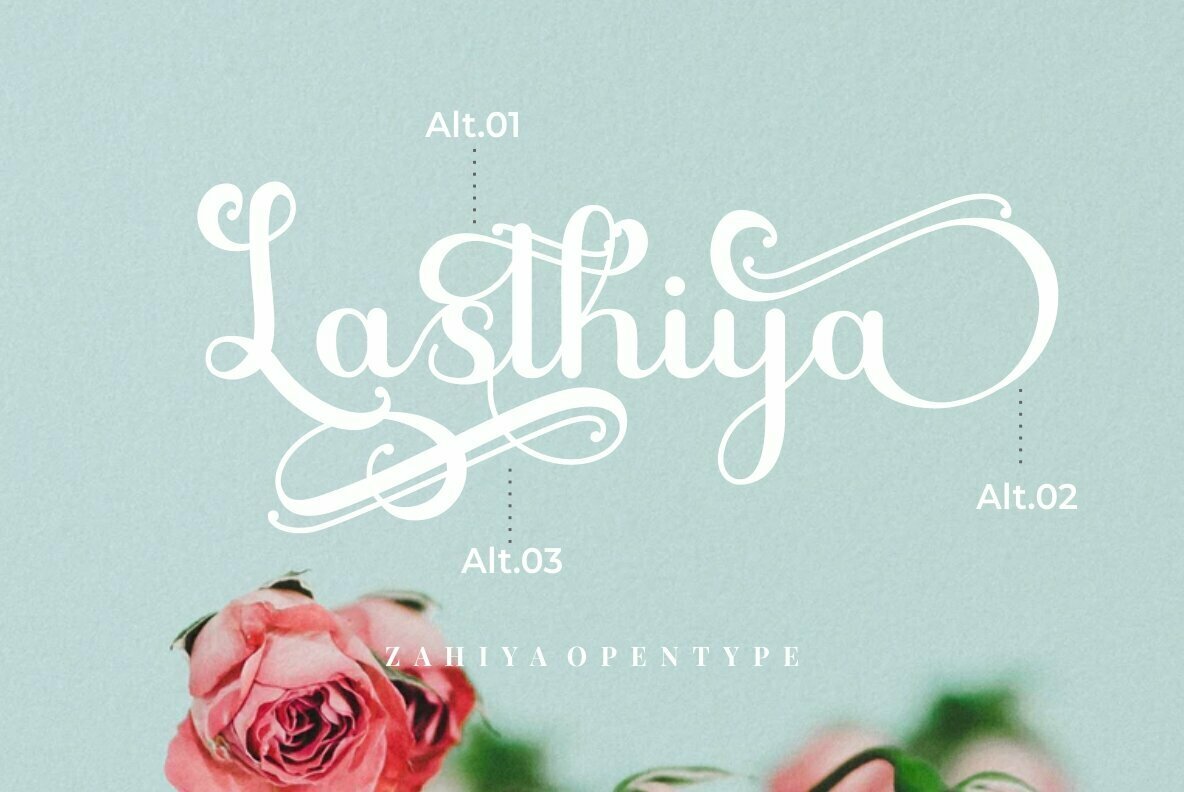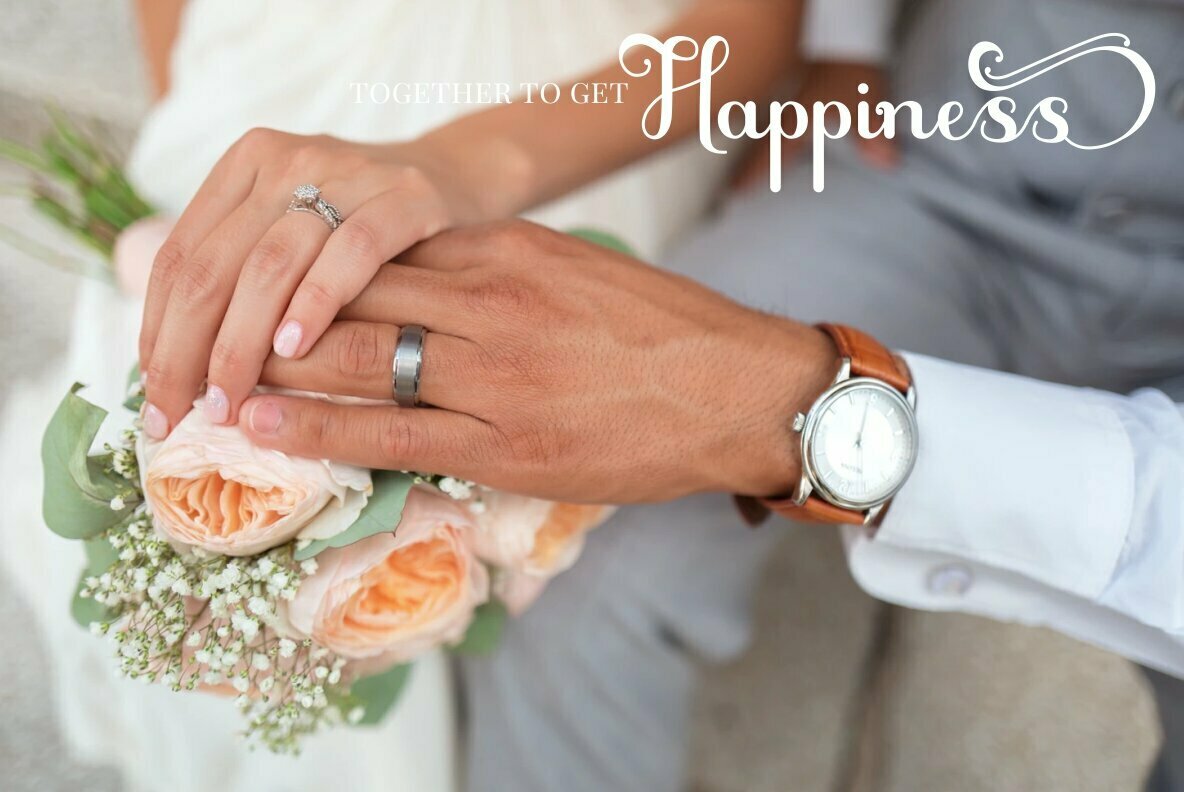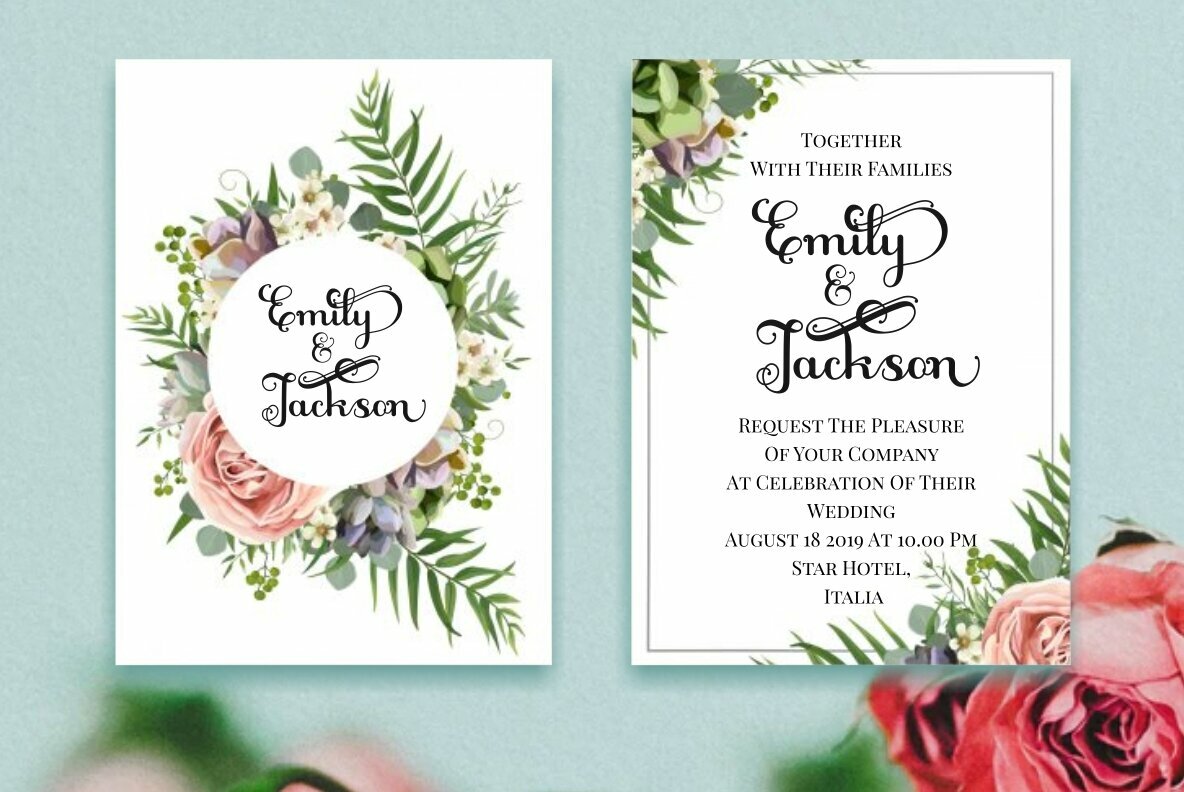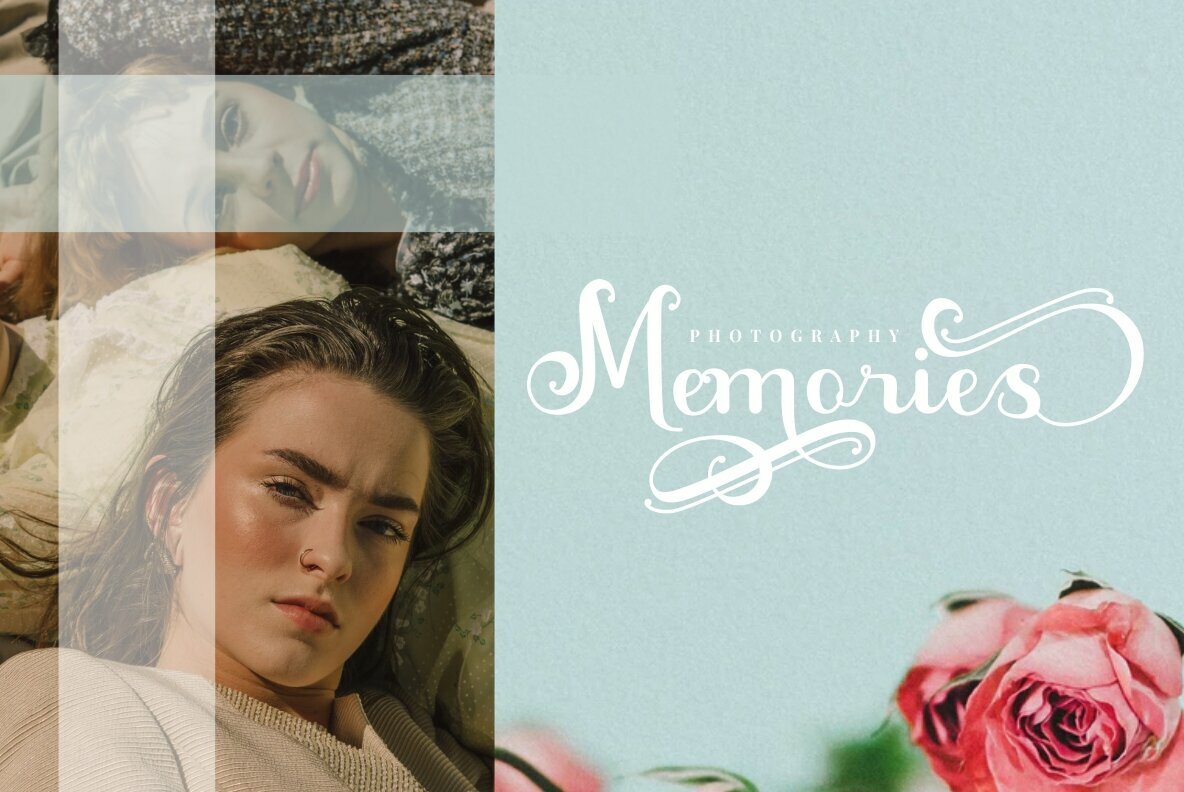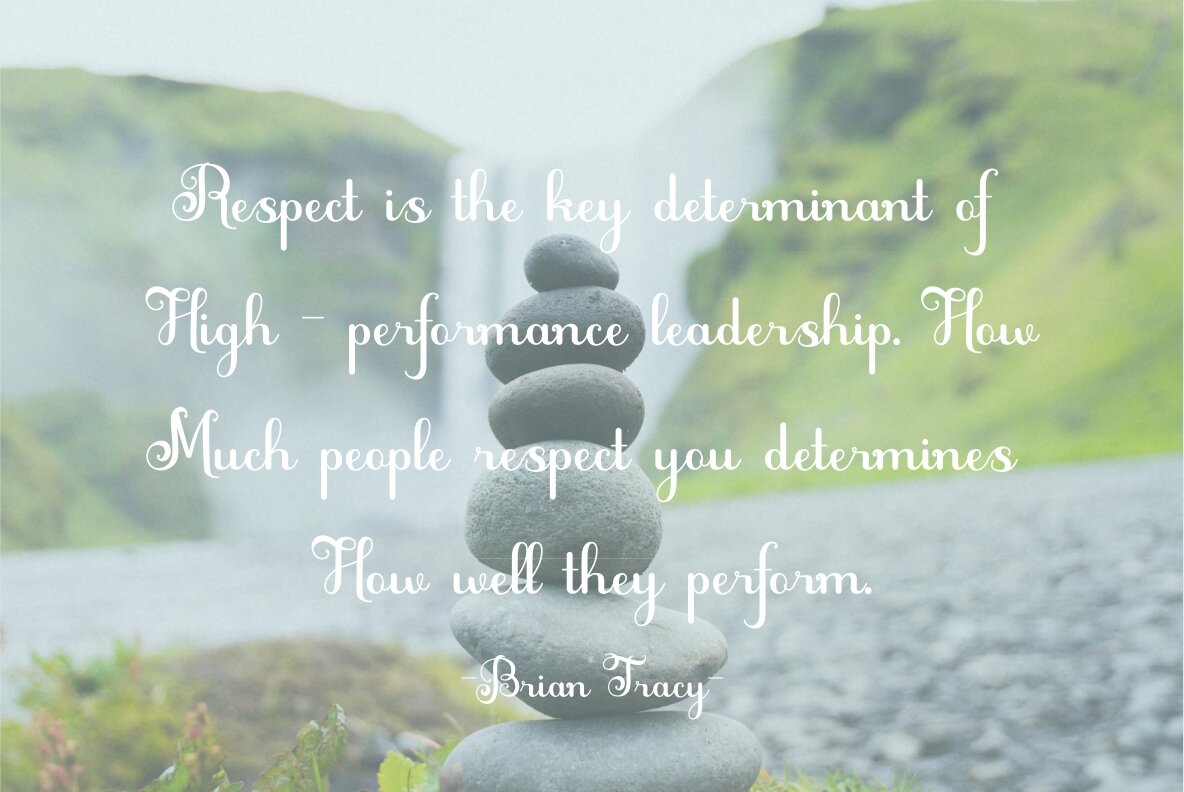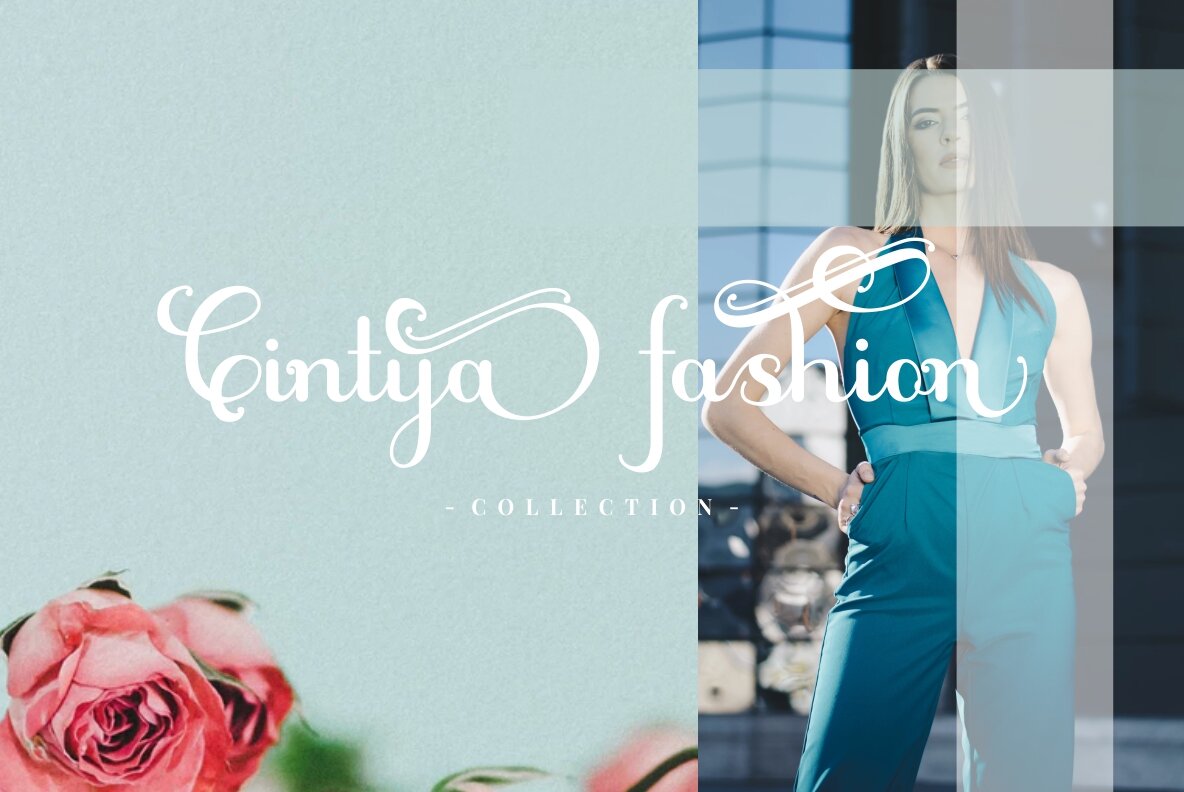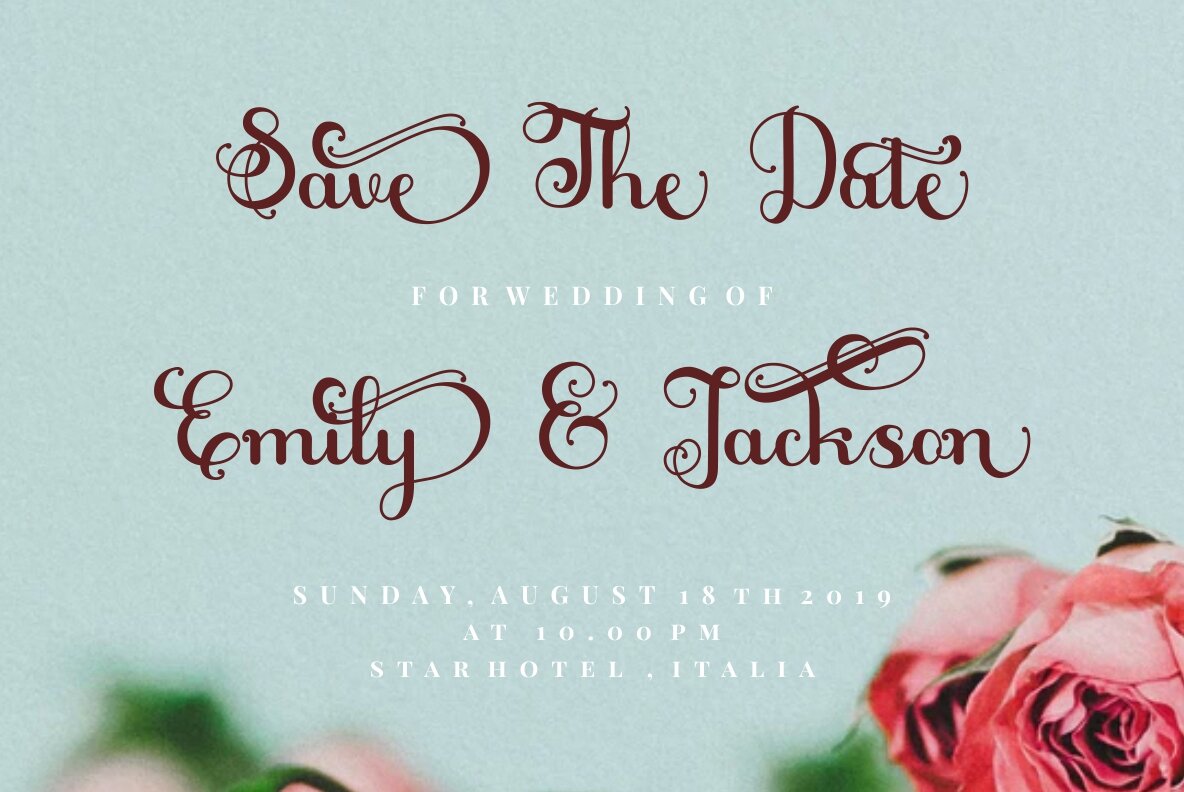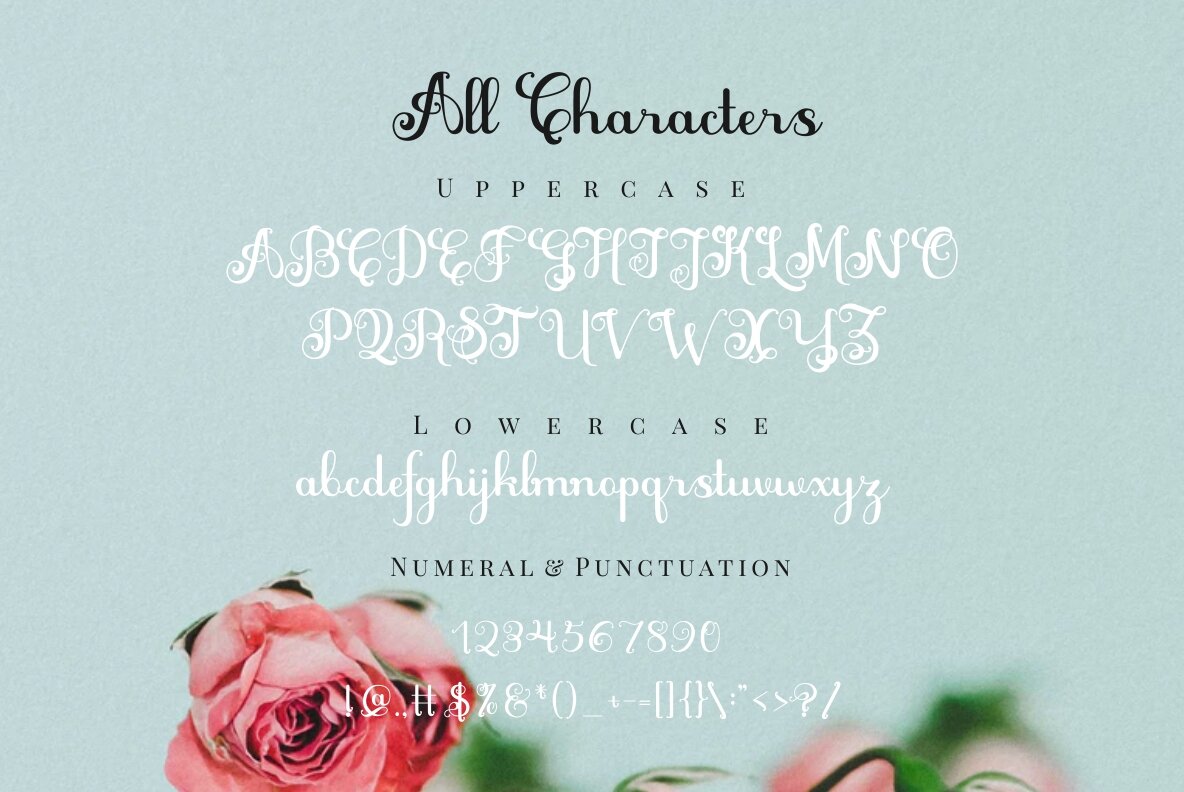
Zahiya Font
Zahiya
Zahiya brings a contemporary twist to traditional calligraphy, featuring distinct flourishes in its alternate characters. Suited for a range of projects, from logotype development to elegant wedding invitations, this font serves well in fashion, book design, magazine typography, and much more. Zahiya adds a touch of sophistication to packaging, posters, and comprehensive branding initiatives. Enhanced by its OpenType features, Zahiya offers an abundance of alternates that enrich your lettering creations. This versatility ensures that it meets the demands of multi-language designs. To utilize the alternate glyphs, employ software that supports OpenType capabilities, such as Adobe Illustrator CS, Adobe Photoshop CC, Adobe InDesign, and CorelDraw. Features:Zahiya: Modern Calligraphy With Unique Flourishes